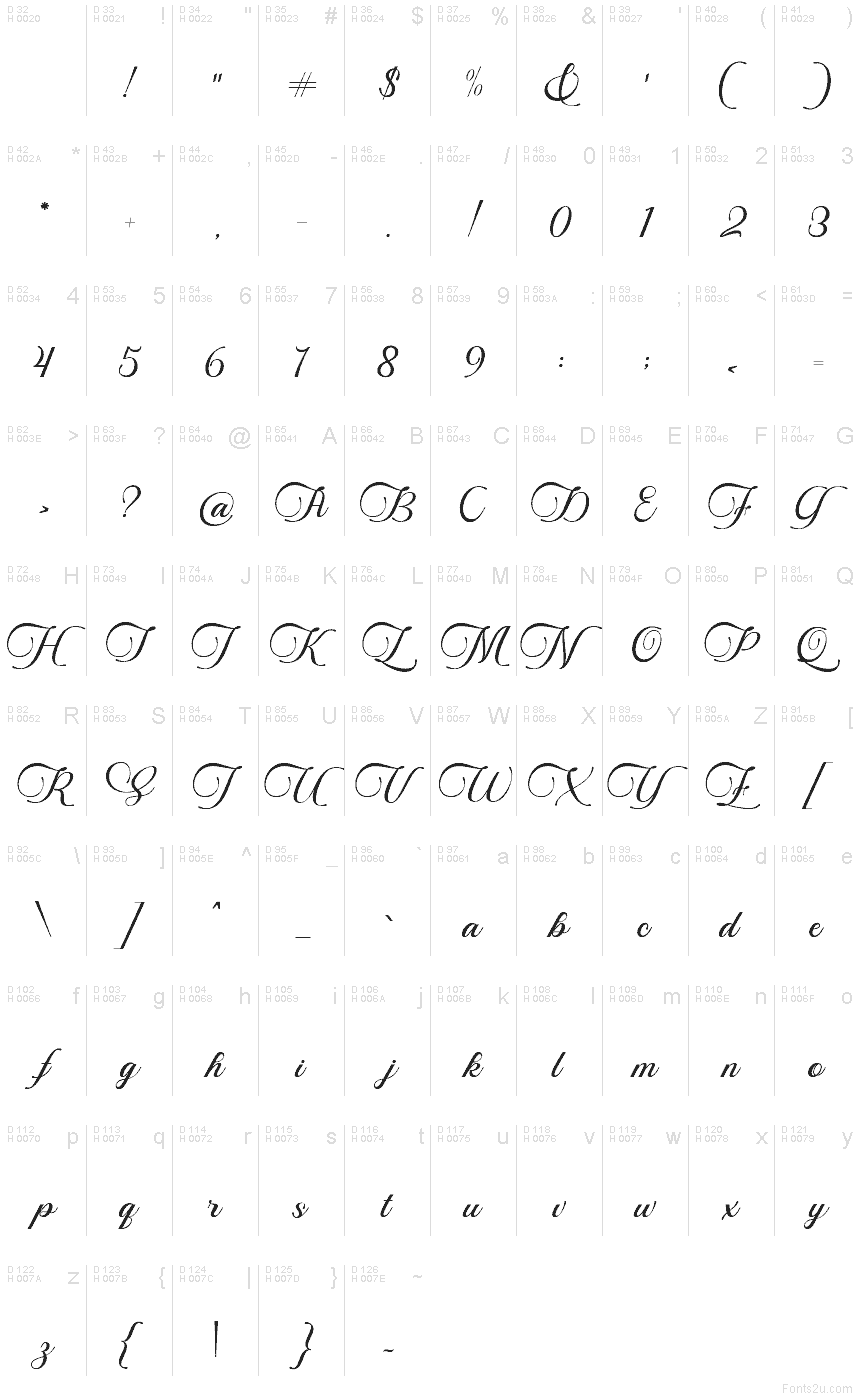
ManillaScript
Manilla Script font by Romi Rahmadi is a calligraphy typeface with elegant characters that flow seamlessly to create decorative pieces of text. The script displays classic charm with graceful curves present in its capitals and main letters. Adding a stylish flair has never been easier!
Add some value to your blog and magazine headlines, ad titles, typography t-shirt designs, product labels and packages, video titles, book covers, album covers, business cards, printed textures on throw pillows or curtains. This free calligraphy font can get the job done professionally!